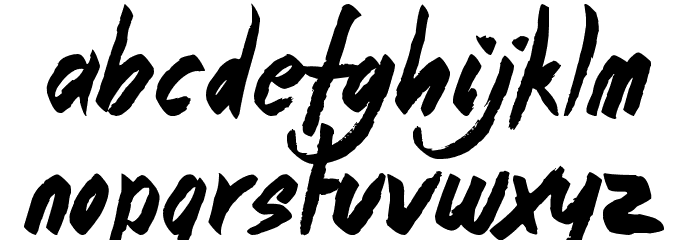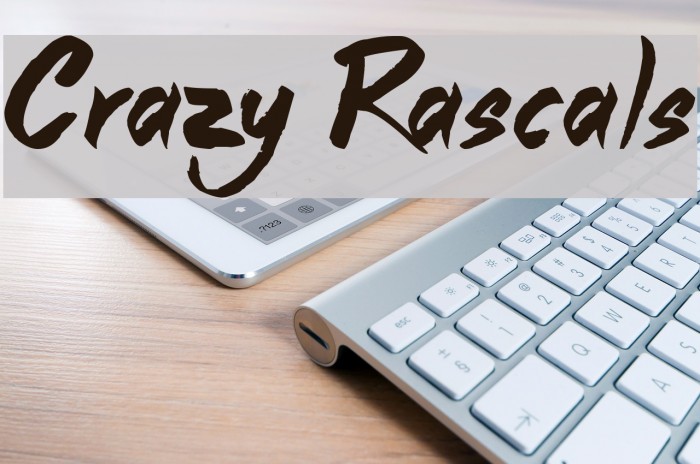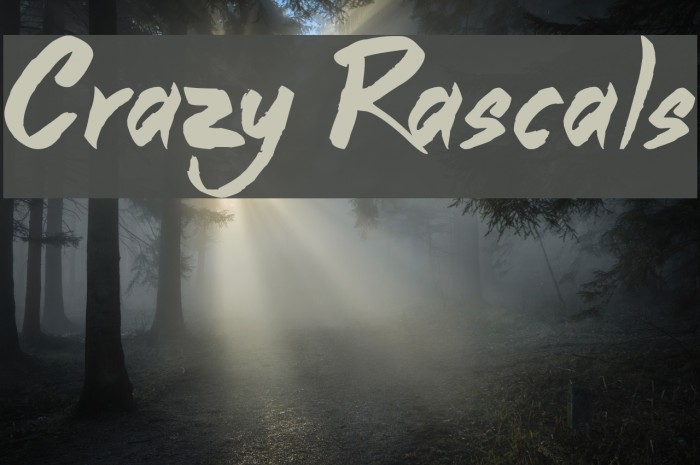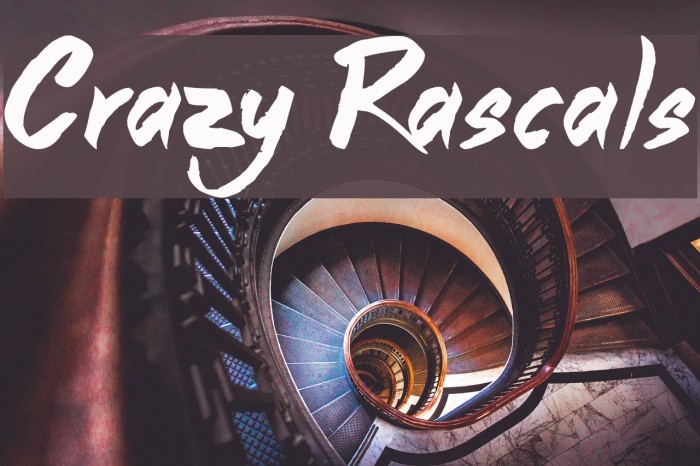
Crazy Rascals Font
This font exhibits a bold and expressive style, characterized by its brush-like strokes and dynamic flow. The uppercase letters are robust and slightly slanted, giving a sense of movement and energy. The lowercase letters maintain this energetic style, with some characters featuring unique flourishes that add to the overall playful and rebellious aesthetic. The numbers and special characters are consistent with the bold and artistic theme, making them stand out prominently. This font is ideal for projects that require a touch of creativity and boldness.
A bold, brush-style font with dynamic and expressive strokes.
- Proposed Projects: Perfect for posters, album covers, graffiti art, and branding that requires a bold statement.